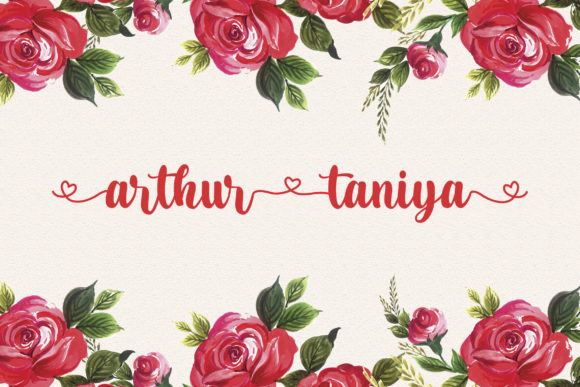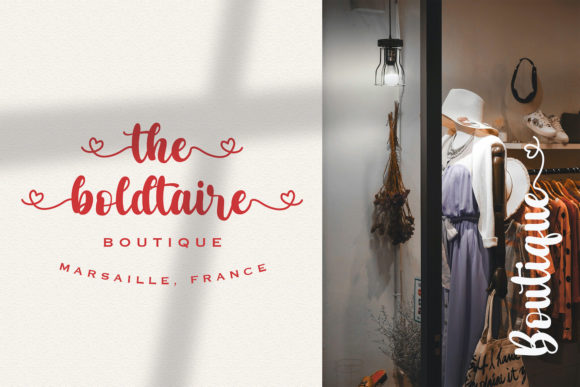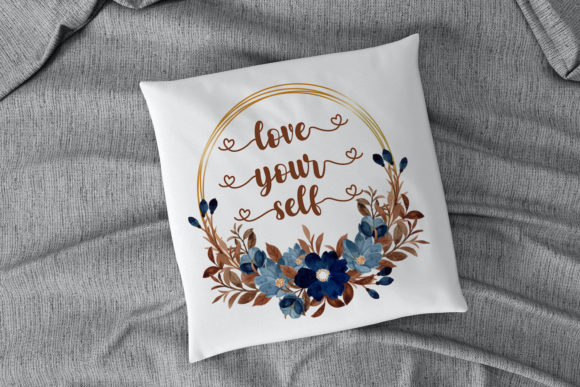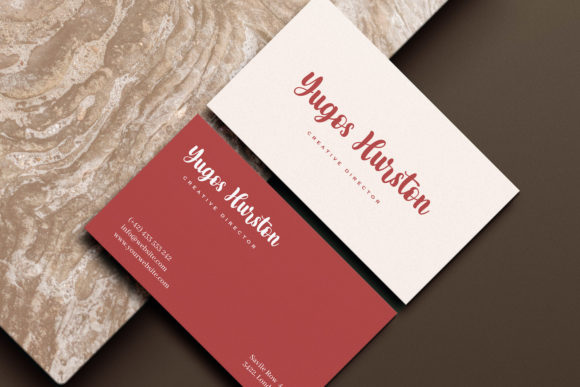
Arthur Taniya Font
About the Arthur Taniya Font
The wait is over! The incredible Arthur Taniya Font is now available for your design toolkit. Arthur Taniya is an exquisite script font with beautiful heart swashes, masterfully designed to become a true favorite. It maintains its classy calligraphic influences while feeling contemporary and fresh. Fall in love with it and bring your projects to the highest levels! This font is PUA encoded which means you can access the available glyphs and swashes with ease!
Arthur Taniya’s elegant yet contemporary style makes it ideal for projects requiring a touch of sophistication. It excels in logo design, short headlines, wedding invitations, and other applications where its graceful swashes can be showcased effectively. Avoid using it for large blocks of body text or UI elements; its ornate nature can hinder readability in those contexts.
This script font pairs well with clean sans-serifs like Montserrat or Open Sans for a balanced contrast, or with a geometric sans-serif such as Futura for a more modern feel. For a warmer, more traditional look, consider pairing it with a classic serif like Garamond or Didot.
The overall personality of Arthur Taniya is sophisticated and refined, lending itself to brands seeking an air of luxury, artistry, or timeless elegance.
Arthur Taniya Font Usage Examples
Arthur Taniya Font Example